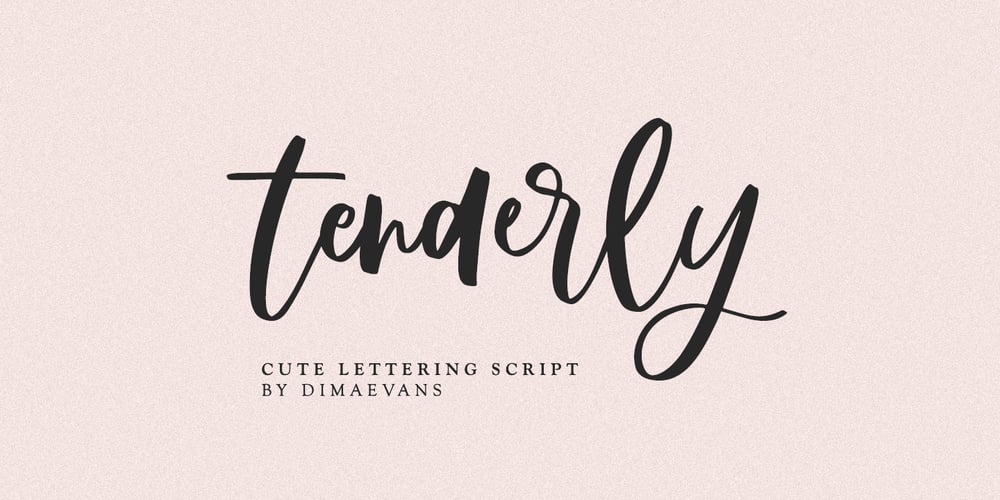
Tenderly Font Family was designed by Dmitrii Chirkov and published by Supfonts. Tenderly contains 1 styles and family package options. Tenderly it is a chic lettering font with exquisite accents. It is perfect for branding, wedding invitations and invitation cards and more.This font includes a full set of gorgeous uppercase and lowercase letters, numbers, a large selection of punctuation marks and ligatures.Includes: Regular Script Latin languages support Uppercase and lowercase Numbers and punctuation Ligatures Check out my blog: https://www.instagram.com/di.zigner/ pinterest.com/dmitriychirkov7 Enjoy